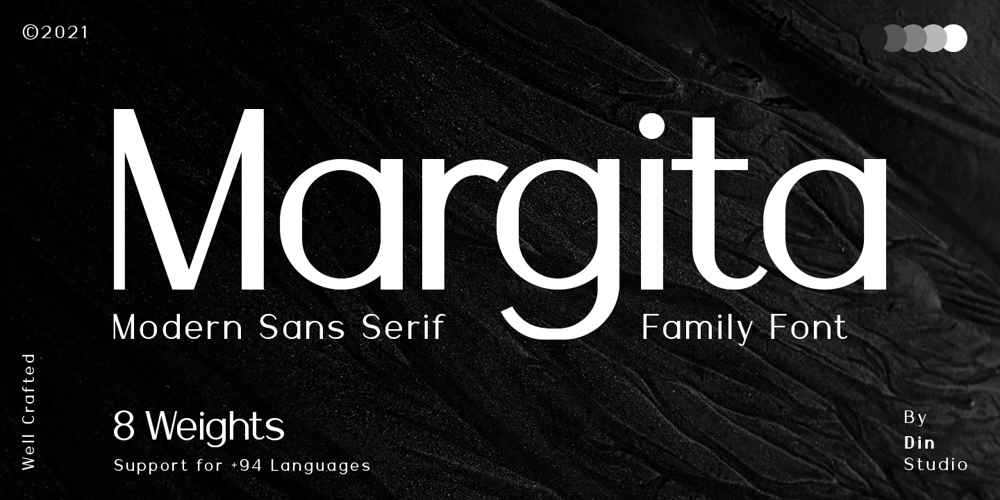
Margita Font Family was designed by Donis Miftahudin and published by Din Studio. Margita contains 8 styles and family package options. Have you ever missed something in creating a pretty design and thought of adding your magic touch to it?Margita is more than just a script font as it expresses luxury and elegance in each character from which you will increase your sales and leave the best impressions. This font has great legibility and thickness level options to make it more special. As a result, you have more freedom of how and where you will use it.Include 8 different weight fonts: Margita Hairline Margita Thin Margita Light Margita Regular Margita Medium Margita Semi Bold Margita Bold Features: Multilingual Options PUA Encoded Numerals and Punctuation Margita fits best for various designs, such as posters, banners, logos, book covers, headings, printed products, merchandise, social media, and more. Find out more ways to use this font by taking a look at the font preview. Enjoy your experience with this font and feel free to contact us for further product information or trouble complaints. Thank you for purchasing our font and happy designing.